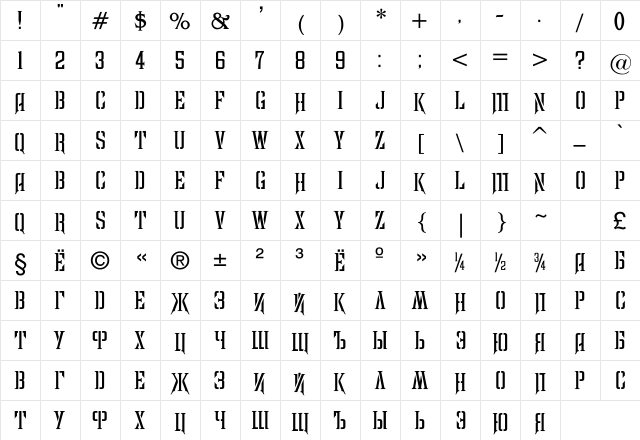
RuinedC Regular Font Preview
RuinedC Regular
RuinedC Regular Font Details
Design Context for RuinedC Typeface
RuinedC is a composed and adaptable typeface that performs quietly and consistently across a wide range of design contexts.